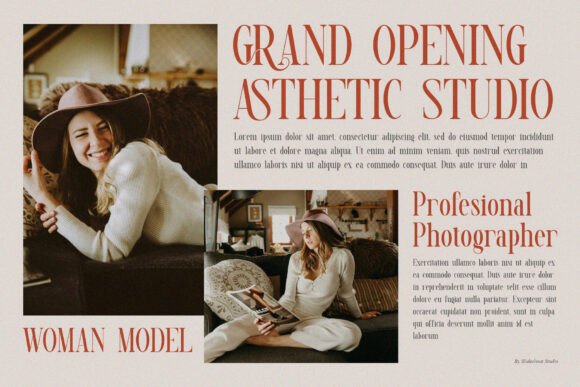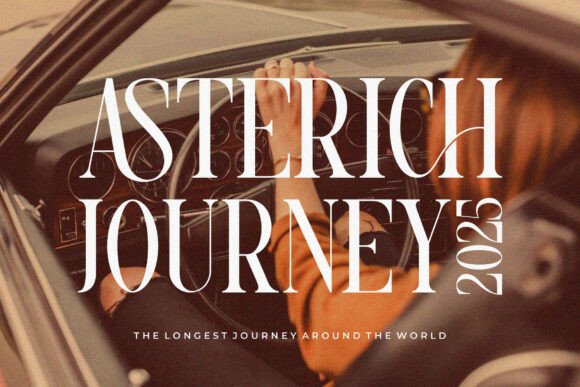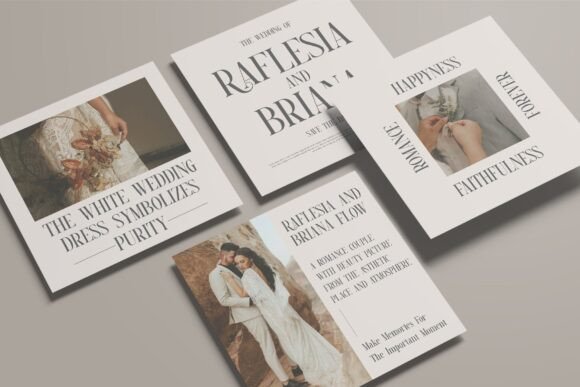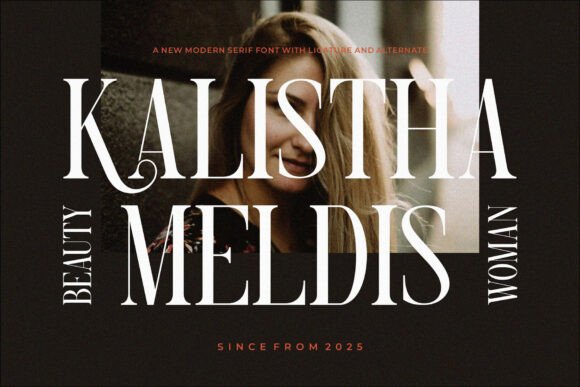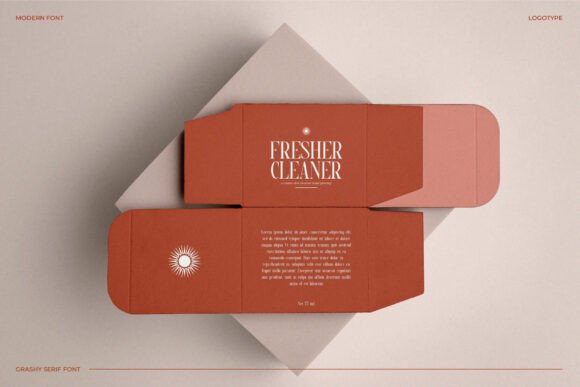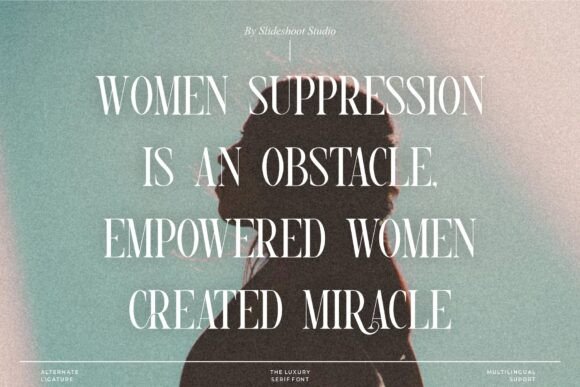
The Elusive Font: A Designer’s Journey to Elegance with Grashy
I still remember the countless hours I spent searching for the perfect font for a luxury branding project. My client wanted something that exuded elegance, sophistication, and timelessness. I scrolled through pages of font libraries, but nothing seemed quite right. That was until I stumbled upon Grashy, a graceful serif font that instantly caught my eye. In this article, I’ll share my experience with Grashy, its features, and how to make the most of this beautiful font in your designs.
An Honest Review of Grashy
What I Love About Grashy ✨
- 💫 Timeless design: Grashy’s classic serif style ensures your designs never go out of fashion.
- 🎨 Stylish ligatures and alternates: Add a touch of uniqueness to your text with Grashy’s beautiful swashes and alternates.
- 🖌️ Luxury feel: Perfect for high-end branding, wedding invitations, fine art projects, and editorial layouts.
- 👍 Easy to read: Despite its elegant look, Grashy remains highly legible, making it suitable for body text.
While Grashy is an excellent font, there are a few things to keep in mind:
- ⚠️ Requires OpenType support: To access all the advanced features like ligatures and stylistic alternates, ensure your design software supports OpenType fonts.
The Story Behind Grashy
Grashy was inspired by the timeless elegance of classic serif fonts, with a modern twist. The designer aimed to create a font that would bring a sense of luxury and sophistication to any project. With its stylish ligatures and alternates, Grashy is perfect for those looking to add a touch of exclusivity to their designs.
Q: What is Grashy best used for?
Grashy is ideal for luxury branding, wedding invitations, fine art projects, and sophisticated editorial layouts. Its elegant design and advanced typographic features make it perfect for projects that require a high-end look.
Q: Does Grashy support OpenType features?
Yes, Grashy fully supports OpenType features, including ligatures, stylistic alternates, and swashes. This allows you to customize your text and add unique touches to your designs.
Q: Is Grashy easy to read?
Despite its elegant and stylish design, Grashy remains highly legible, making it suitable for both headings and body text.